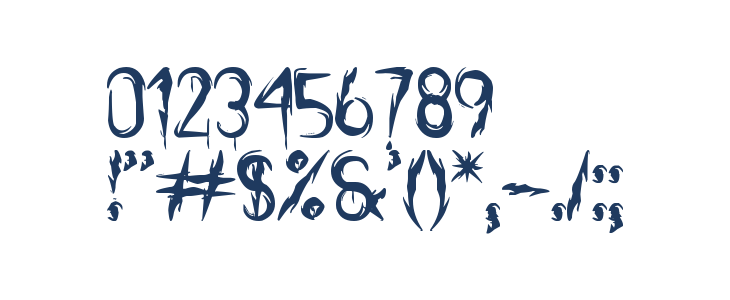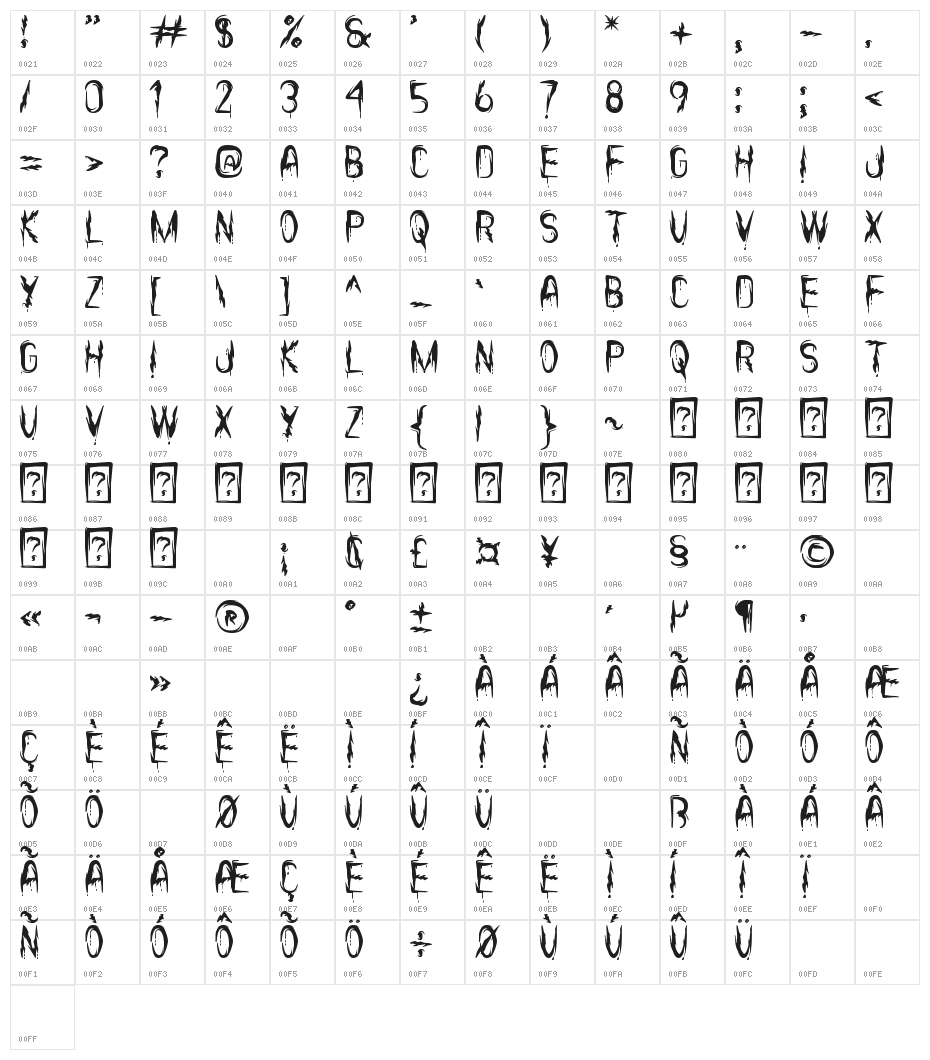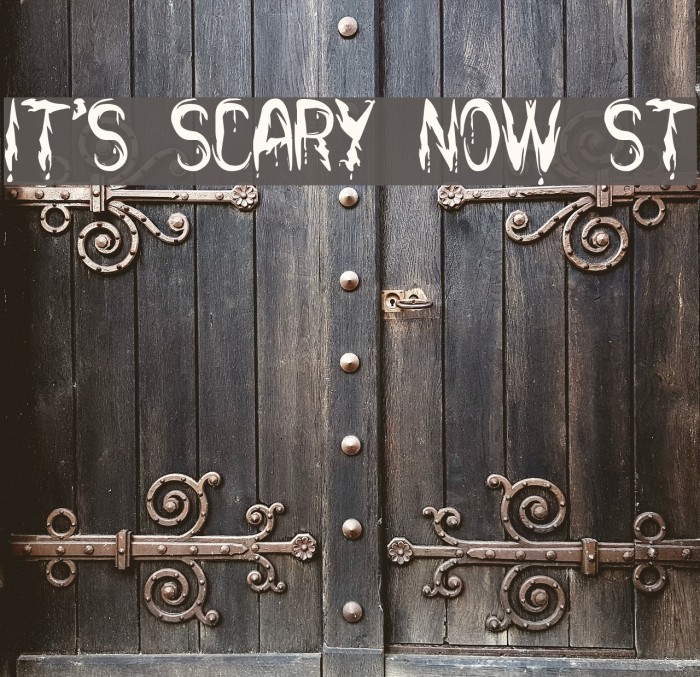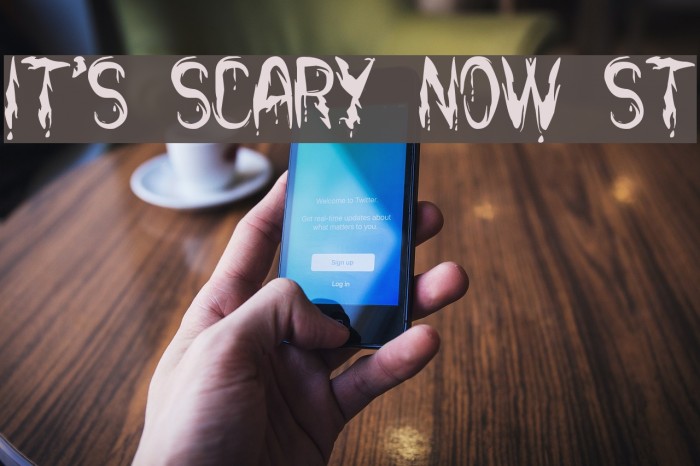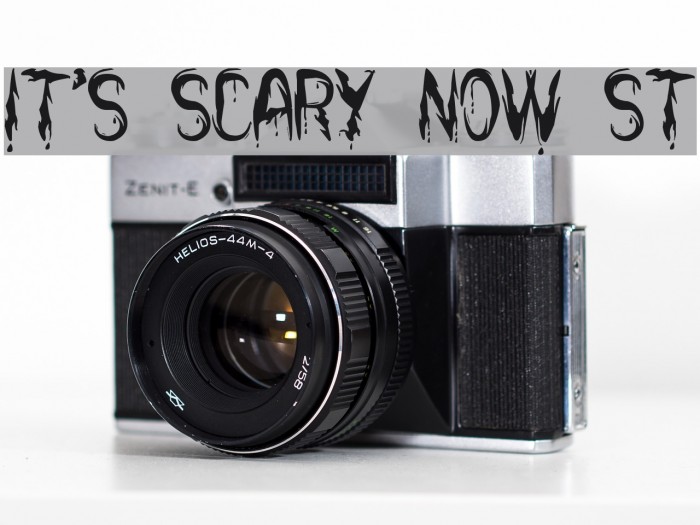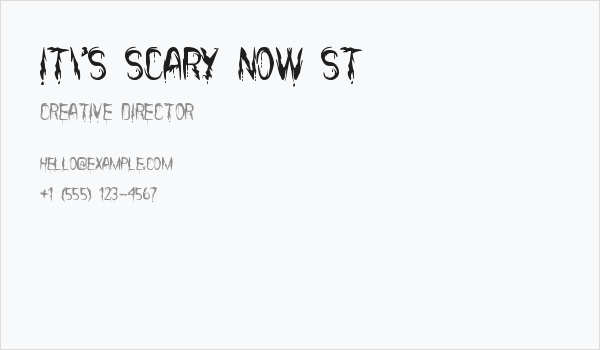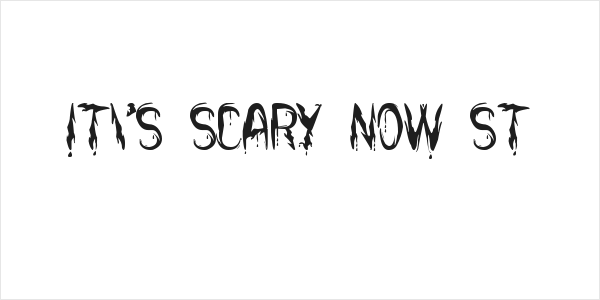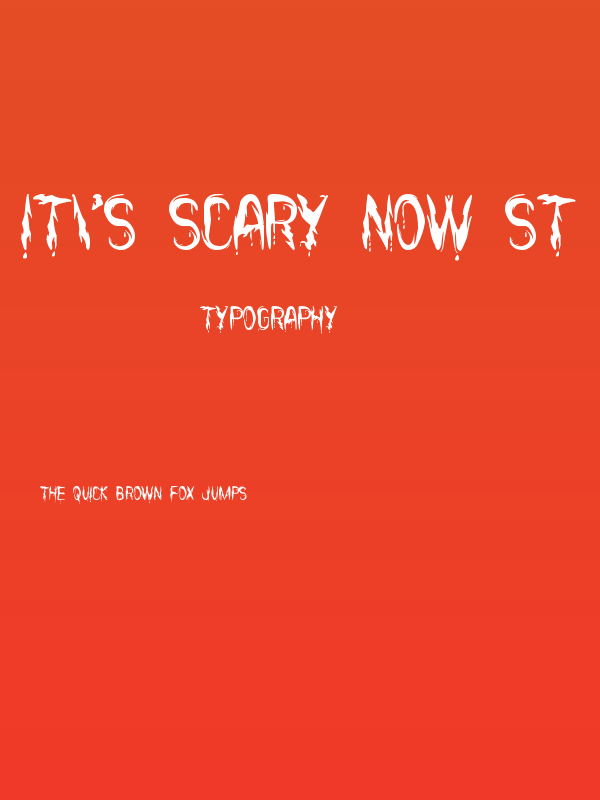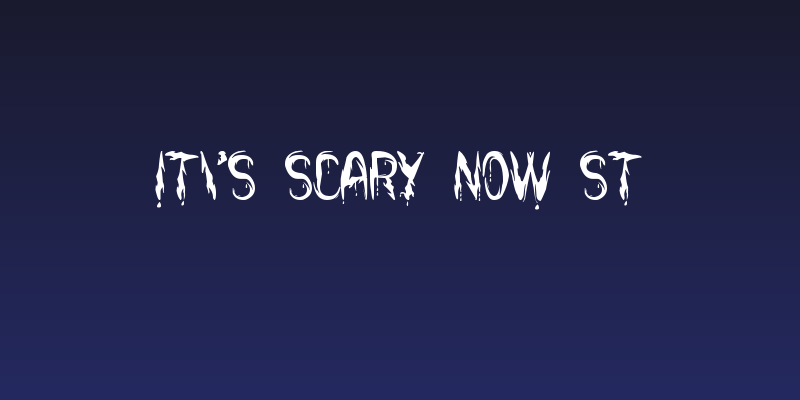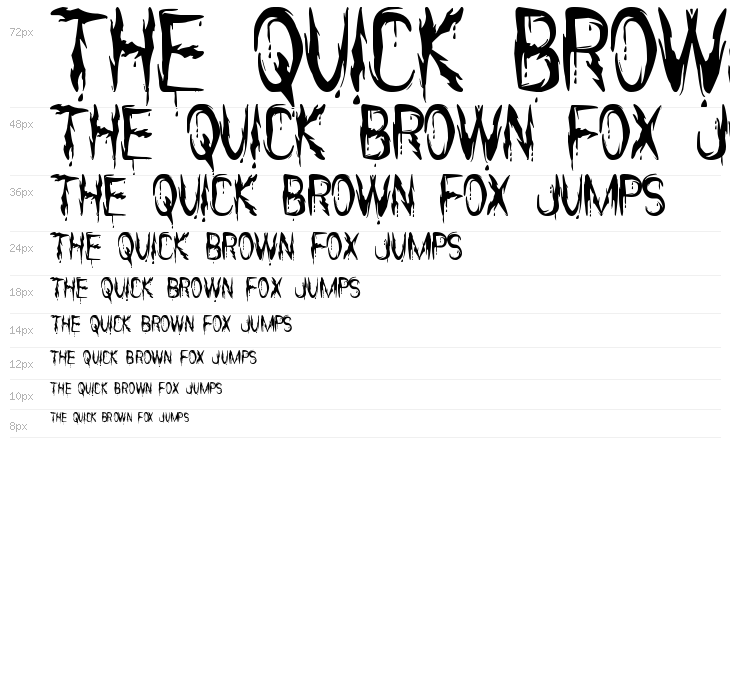
it's Scary Now St Font
it's Scary Now St Description
This font exudes a chilling and eerie vibe, perfect for Halloween or horror-themed projects. The characters are designed with dripping, jagged edges that resemble melting wax or blood, creating a sense of unease and suspense. The uppercase and lowercase letters maintain a consistent style, with sharp, pointed ends and irregular shapes that enhance the unsettling aesthetic. Numbers and special characters follow the same design principles, ensuring a cohesive look across all text elements. The overall appearance is bold and dramatic, making it ideal for capturing attention and evoking a spooky atmosphere.
| Proposed Projects | Ideal for Halloween invitations, horror movie posters, haunted house flyers, and spooky event branding. |